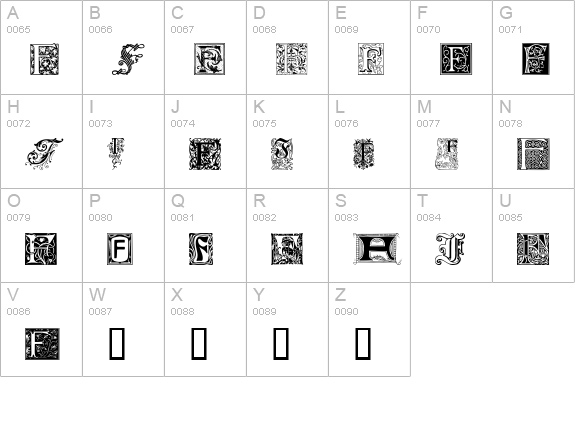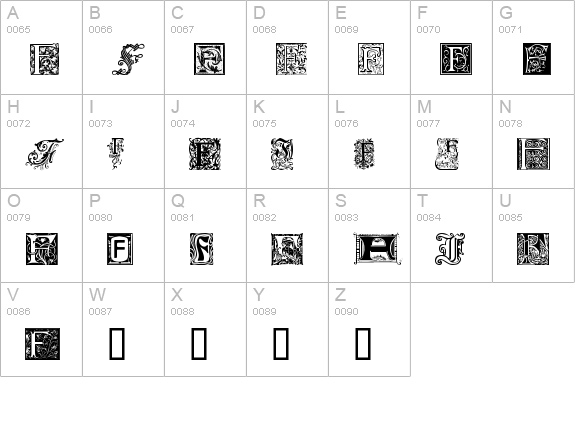
Ornamental Initials F Font Details
Introducing Ornamental Initials F font, a stunning and elegant typeface that is sure to elevate any design project to new heights. This ornate font features beautifully intricate details and ornamental elements that make it stand out from the crowd. With its sophisticated and timeless appeal, Ornamental Initials F font is perfect for adding a touch of luxury and charm to invitations, posters, branding, and more. What's even better is that Ornamental Initials F font is completely free to download at FontsMarket.com. Yes, you read that right - you can easily access this exquisite font at no cost, making it an invaluable resource for both personal and commercial use. So why wait? Add a touch of sophistication to your designs with Ornamental Initials F font today!